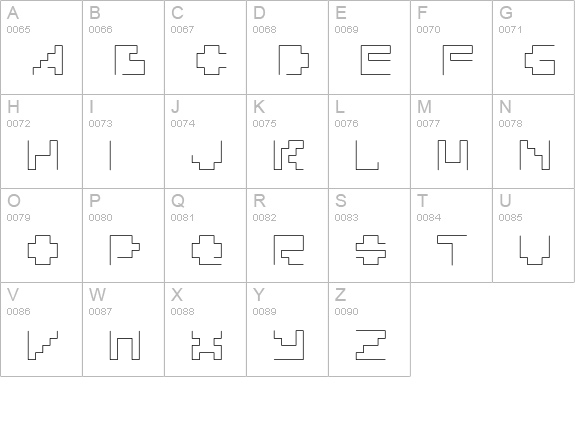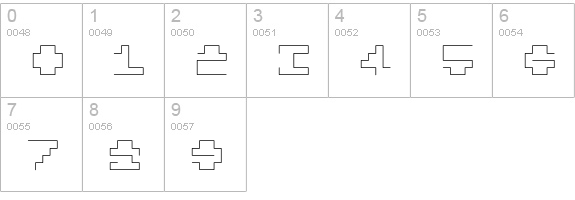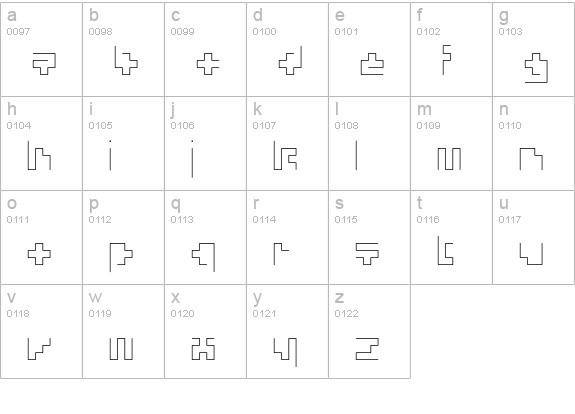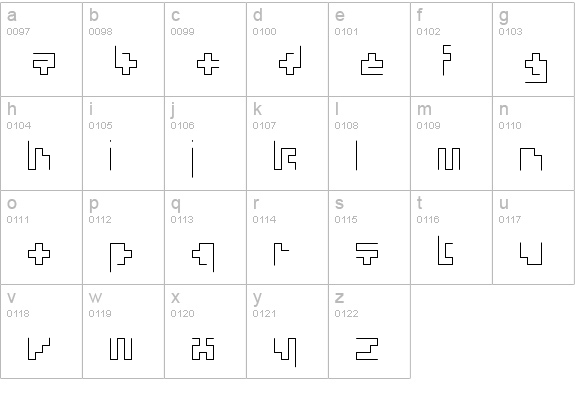
Silesia-Thin Font Details
Silesia-Thin is a delicate, low-contrast variant in the Silesia typeface family \xE2\x80\x94 well suited to fashion editorial, minimal branding, and high-contrast display.
Silesia-Thin is an elegant and sophisticated font that exudes a sense of minimalism and refinement. With its delicate and slender letterforms, this typeface embodies grace and subtlety, making it perfect for projects that require a touch of understated elegance. This font's thin strokes and clean lines create a sleek and modern look, making it suitable for a wide range of design applications. Whether you're creating a logo, designing a website, or crafting eye-catching graphics, Silesia-Thin is sure to enhance your work with its timeless beauty. What sets Silesia-Thin apart is not only its aesthetic appeal but also its availability as a free download at FontsMarket.com. This means that you can freely access and utilize this stunning font without any restrictions or limitations. Whether you're a professional designer or a hobbyist, this font offers you the opportunity to add a touch of sophistication to your projects without any cost. The versatility of Silesia-Thin is also worth mentioning. It is highly legible even at small sizes, ensuring that your text remains clear and easy to read. Additionally, its extensive character set includes a range of special characters and accents, making it suitable for multilingual projects. In summary, Silesia-Thin is a free, elegant, and versatile font that effortlessly combines modernity with timeless beauty. With its sleek design and wide range of applications, this font is a valuable addition to any designer's toolkit. Download Silesia-Thin for free at FontsMarket.com and elevate your design projects to new levels of sophistication.